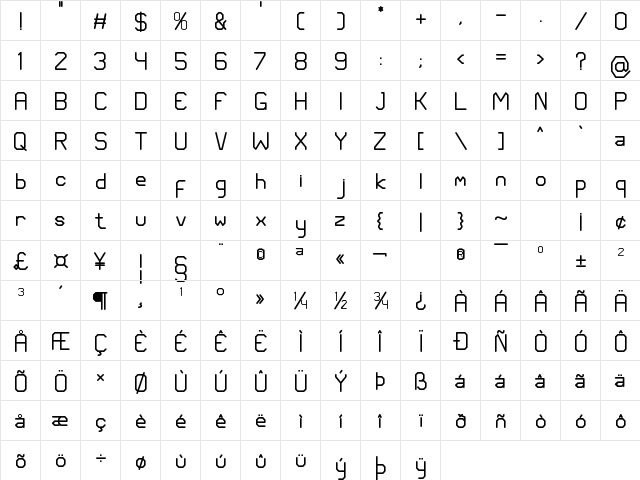
Stream Regular Font Preview
Stream Regular
Design Context for Stream Typeface
Stream takes a measured approach to typography — its balanced proportions and neutral character make it a reliable workhorse for both digital and print work.